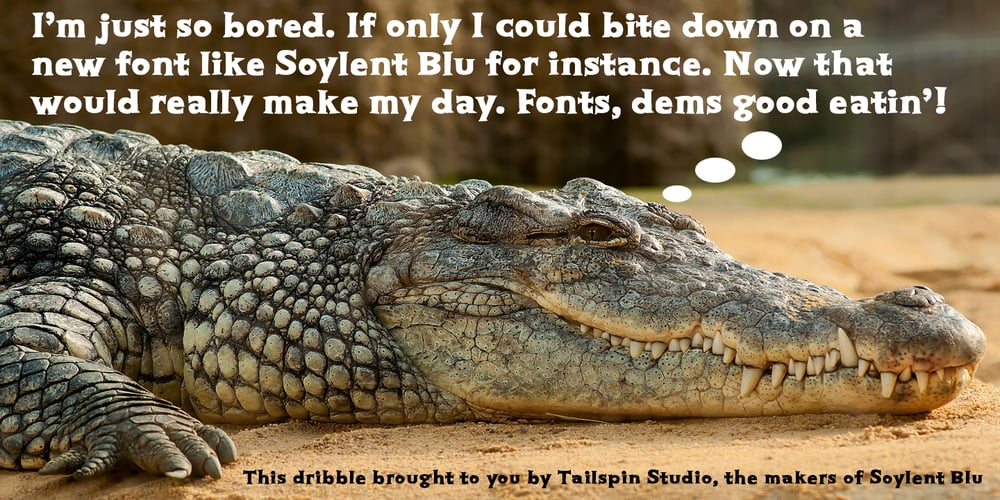
Soylent Blu Font Family was designed by Steve Zafarana and published by Tail Spin Studio. Soylent Blu contains 1 styles and family package options. Soylent Blu is an original wedge serif, single font designed by Steve Zafarana. Its high contrast character style and bouncy baseline create a visual impact that makes it a good candidate for Signs, headlines, logos and advertisements. The full lowercase set with balanced white space also functions quite well in text. Soylent Blu, with OpenType features, is clearly an attention-getter!